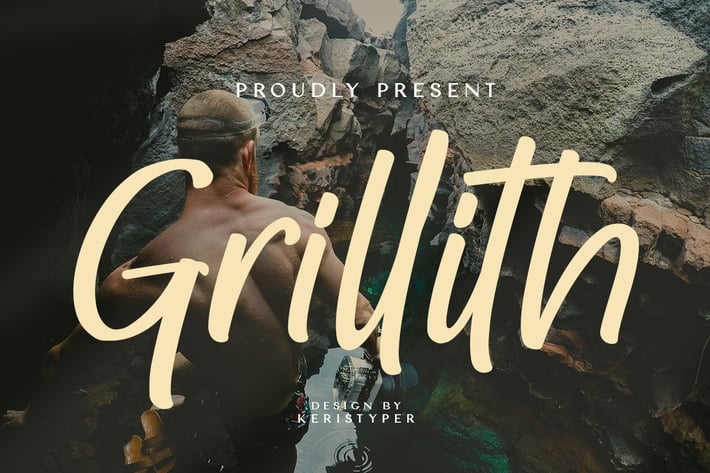
Grillth Font
Presenting Grillith Fonts. This font is created with a unique combination of each character. looks real and can be used for all your project needs. This font can be used anytime and in any project.
Grillith Font multilingual support:
Afrikaans, Albanian, Catalan, Danish, Dutch, English, Estonian, French, Finnish, German, Icelandic, Indonesian, Italian, Malay, Norwegian, Portuguese, Spanish, Swedish, Zulu, and many more.
Standard & Multilingual glyphs